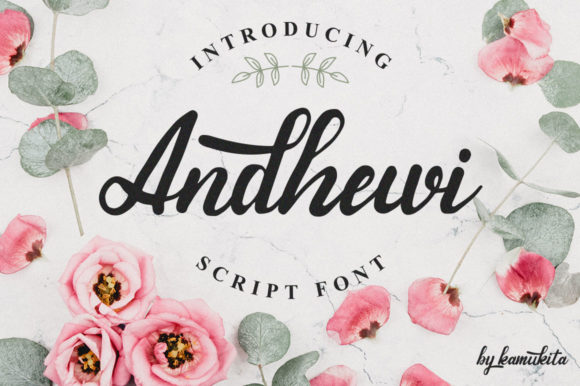
Introducing Andhewi Font, a Script Font for Your Wedding Videos
Prepare to be awestruck by the charm of Andhewi, a handcrafted script font that exudes elegance, grace, and sophistication. Designed by the talented daksarupa, Andhewi is not just a font; it's an art form that transforms your wedding videos into cinematic masterpieces.
Immerse yourself in the beauty of its delicate, flowing characters, meticulously crafted to create a visually stunning experience. Each letter dances across the screen with a finesse that captures the essence of romance and everlasting love. Whether it's the vows, the first dance, or the heartwarming speeches, Andhewi adds a touch of magic to every moment.
With its wide range of glyphs and swashes, Andhewi is the ultimate creative companion. Access a treasure trove of design possibilities, from whimsical invitations to heartfelt save-the-date cards. Unleash your imagination and let Andhewi guide you to create a visual narrative that resonates with your audience.
Step into the world of Andhewi and witness the transformation of your wedding videos. Let its elegance elevate your storytelling, its grace enhance the emotions, and its sophistication leave a lasting impression on your viewers.